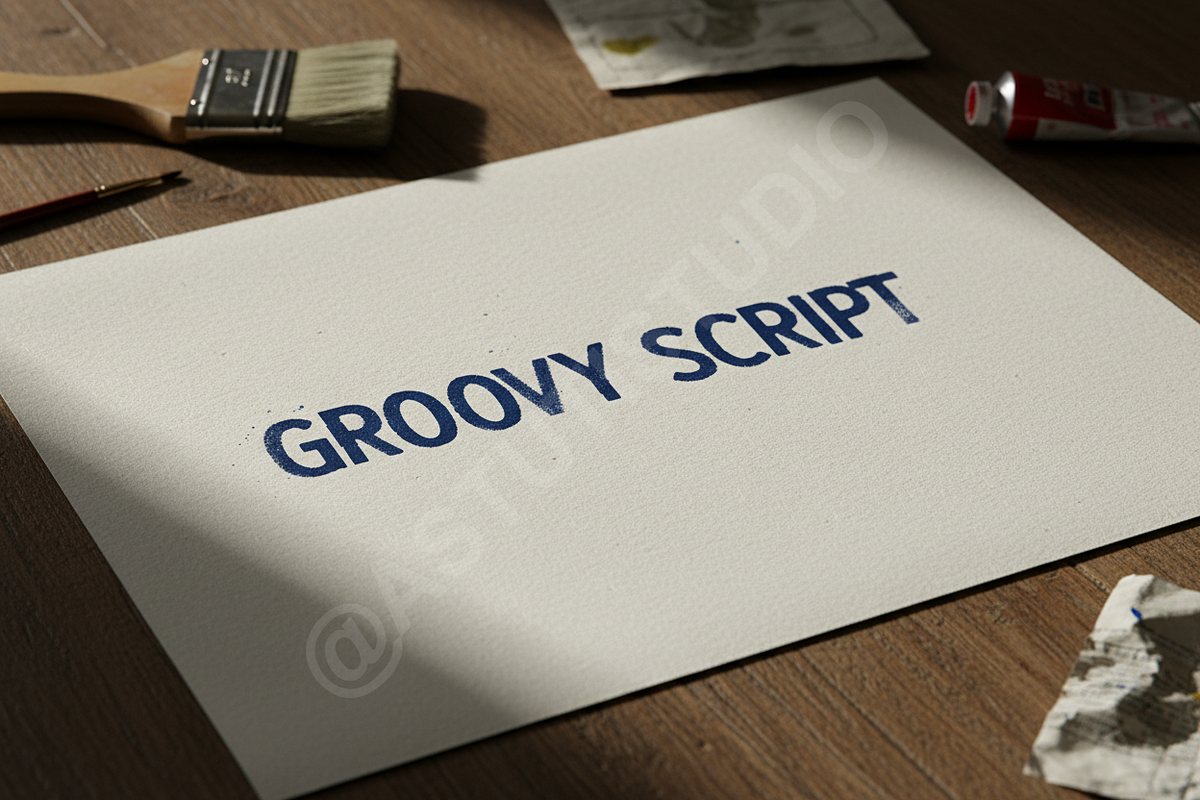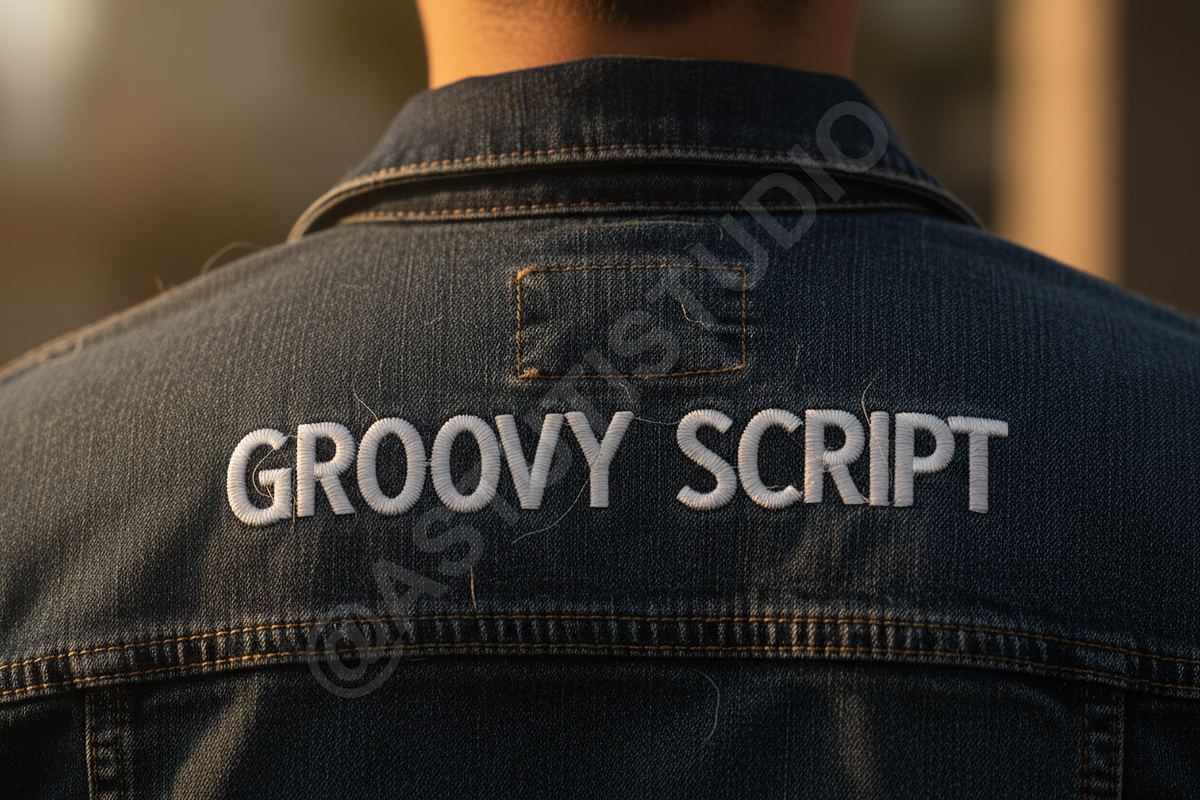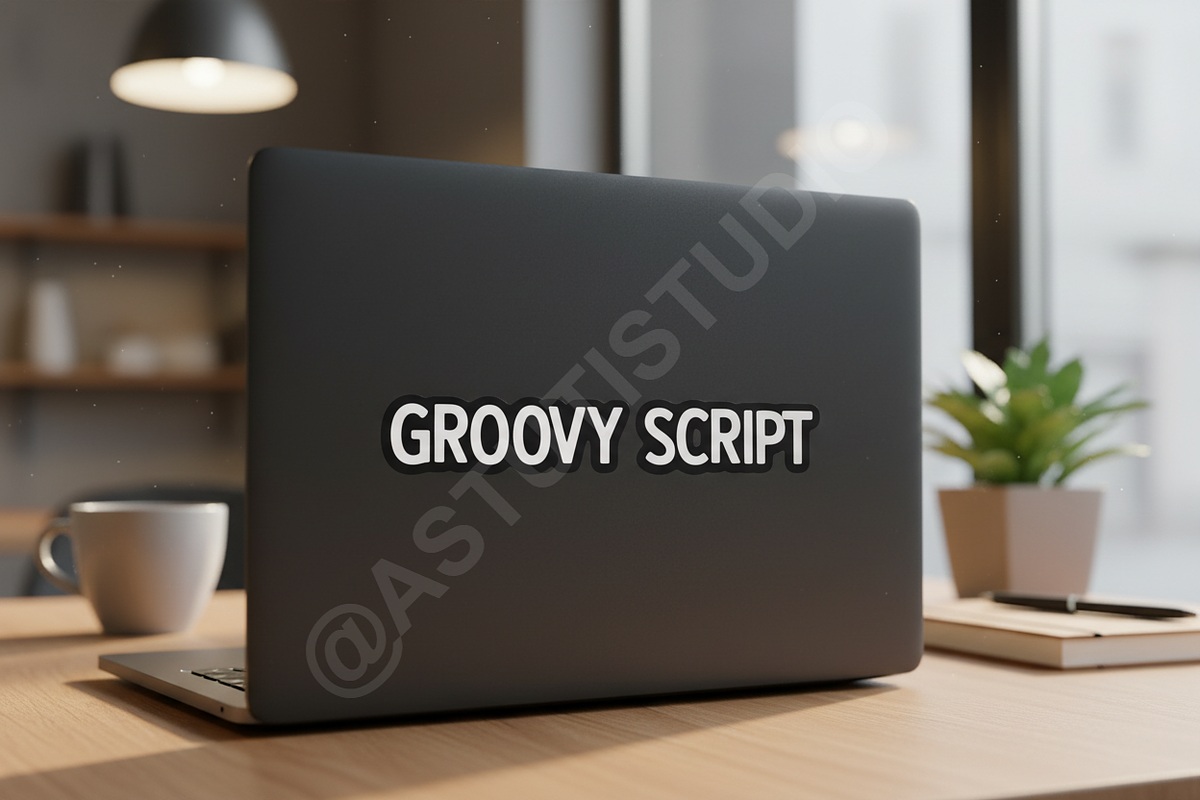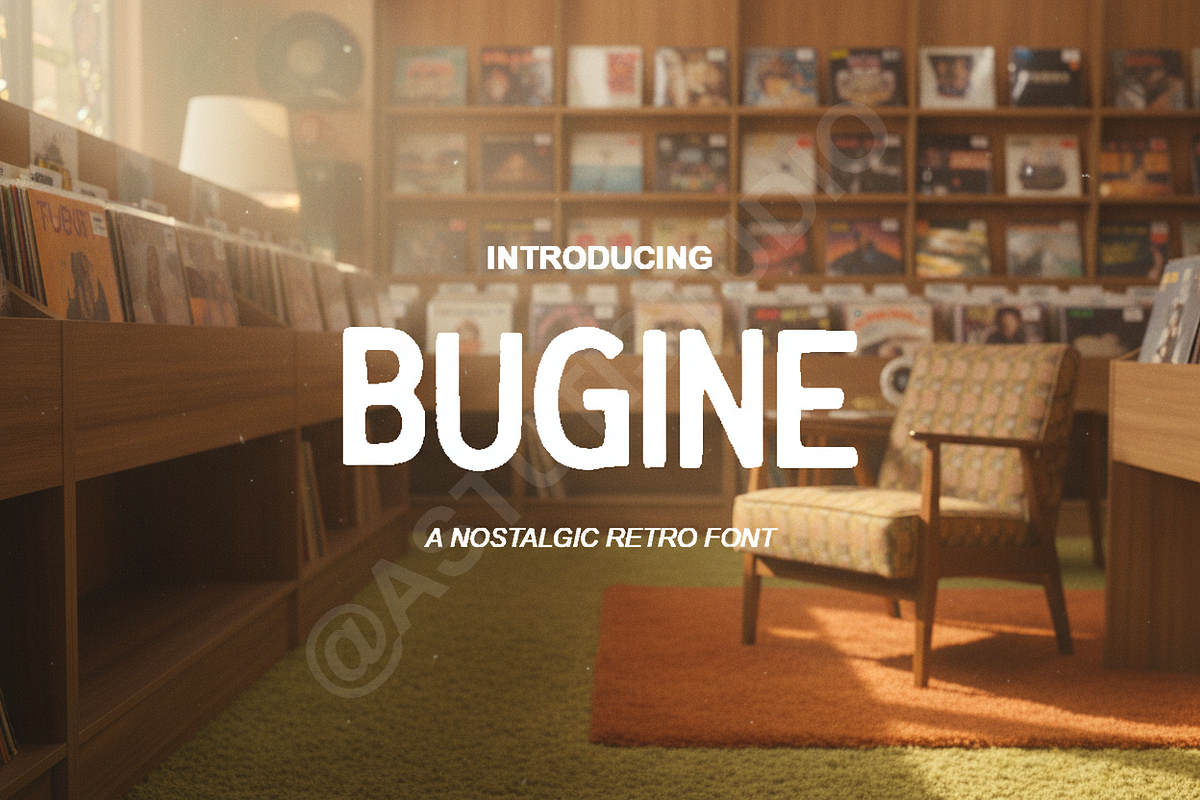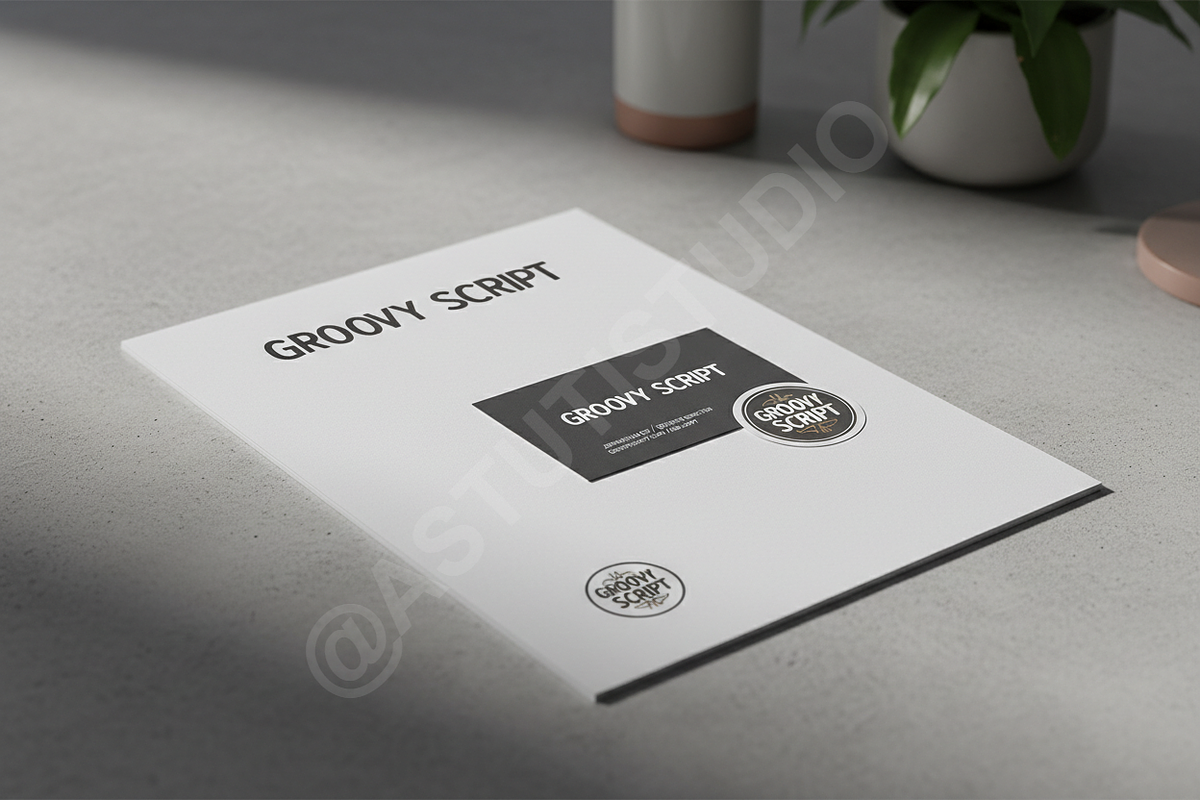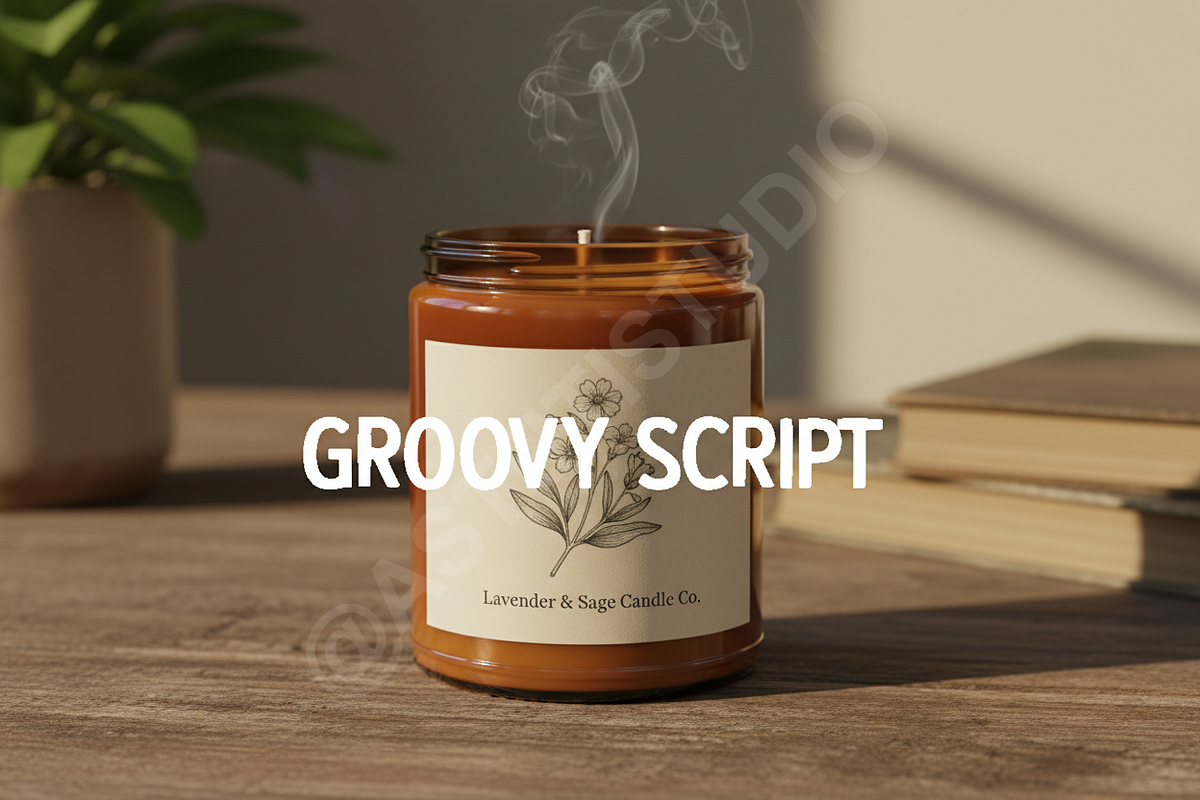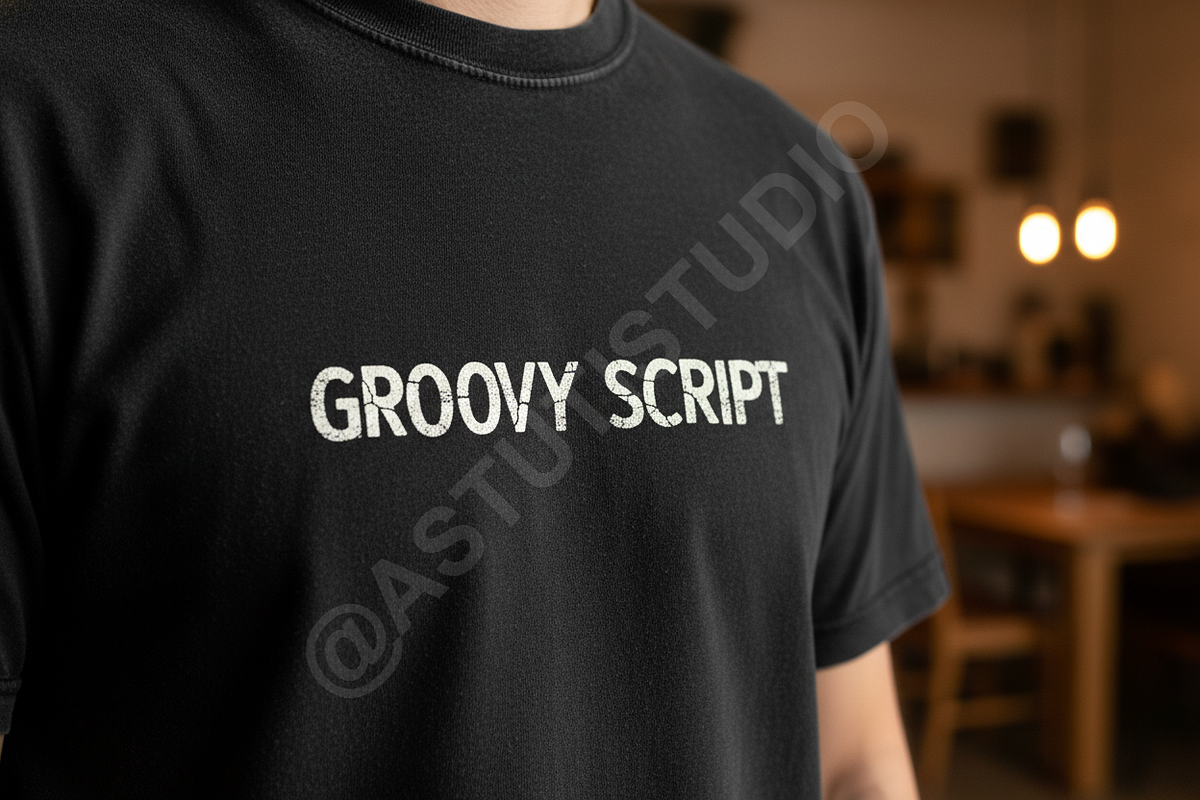
Bugine | Premium Luxury High-Contras
BUGINE: THE ESSENCE OF REFINED ELEGANCE
Bugine is a sophisticated serif typeface meticulously crafted for the luxury market. Combining high contrast, precise geometry, and graceful curves, Bugine offers an unparalleled sense of timeless elegance. It is the perfect choice for projects demanding refinement, clarity, and undeniable premium appeal—from exclusive branding and high-fashion editorials to high-impact social media campaigns.
KEY FEATURES
• Luxury High Contrast Design: Striking balance between thick and thin strokes for maximum visual impact in both large and small settings. • Extensive OpenType Features: Over 100 stylistic alternates, swashes, and discretionary ligatures to customize and personalize headlines and logotypes. • Multi-Language Support: Comprehensive glyph set supporting 60+ Latin-based languages (Western, Central, and South Eastern European). • Optimized Kerning: Meticulously kerned pairs ensure seamless flow and superb readability across physical and digital media.